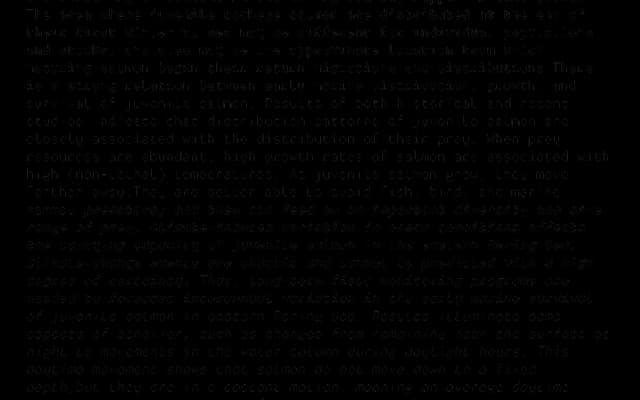
Heimat Mono
A monospaced member of Atlas Fonts' Heimat family, designed for technical and editorial use.
Heimat Mono is the monospaced variant within Atlas Fonts' broader Heimat type system. As part of a wider family, it is positioned to work alongside its proportional counterparts while fulfilling the functional demands of coding, data and tabular setting. Limited page content prevents a fuller assessment of its weight range or stylistic character.
The name explicitly includes 'Mono', indicating a monospaced typeface. It appears to be part of Atlas Fonts' Heimat family, positioned as the monospaced variant.